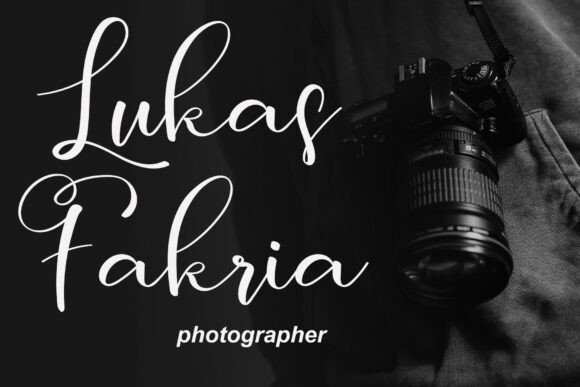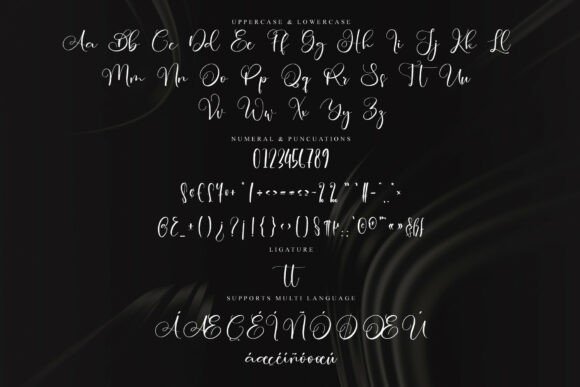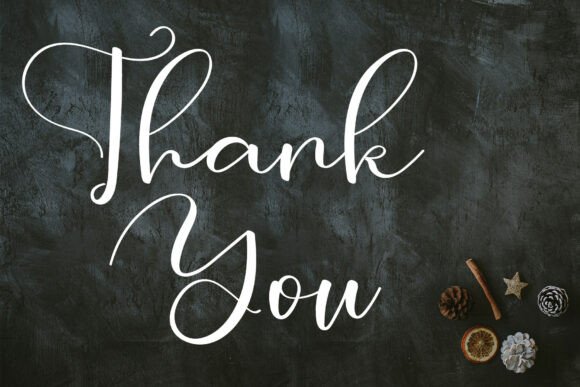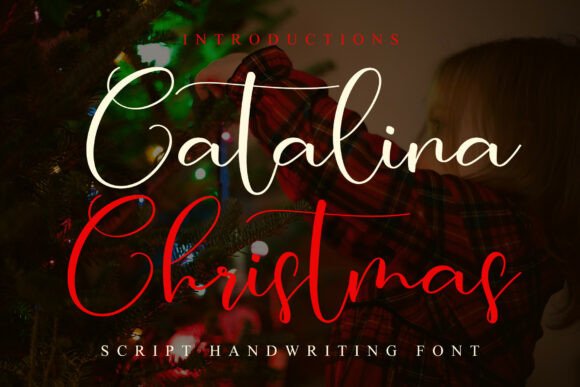
The Magic of Catalina Christmas Font: Elevate Your Designs with Elegance
I still remember the struggle of working on a Christmas-themed project, searching for the perfect font that would capture the essence of the holiday season. My client wanted a design that exuded class and sophistication, but also had a touch of nostalgia and playfulness. That’s when I stumbled upon the Catalina Christmas font, and it instantly became the star of the show. In this article, I’ll share my experience with this beautiful font, its features, and how to make the most of it in your designs.
An Honest Review of Catalina Christmas Font
- 💫 The fluid strokes and graceful curves of Catalina Christmas make it a true showstopper.
- ✅ Its dynamic flow and bold vintage touch add a level of sophistication to any design.
- 💥 The font’s versatility makes it perfect for a wide range of projects, from branding and advertising to crafting and DIY.
- 🎉 The elegant and unique feel of Catalina Christmas is sure to leave a lasting impression.
While Catalina Christmas is an exceptional font, there are a few things to keep in mind:
- 🤔 The font’s bold and cursive nature might make it less suitable for very small text sizes or body text.
- ⚠️ Some OpenType features might not work seamlessly across all design platforms.
The Backstory of Catalina Christmas Font
Catalina Christmas was designed with the intention of capturing the essence of a bygone era, while still feeling fresh and modern. The font’s creator aimed to evoke the nostalgia and magic of the holiday season, making it perfect for designs that require a touch of elegance and sophistication.
Q: What makes Catalina Christmas font so special?
A: Catalina Christmas font combines the beauty of script handwriting with a bold and timeless vintage touch, making it perfect for creating a sophisticated yet powerful impression.
Q: Is Catalina Christmas suitable for body text?
A: While Catalina Christmas is an exceptional font, its bold and cursive nature might make it less suitable for very small text sizes or body text. It’s best used for headings, titles, or short paragraphs.